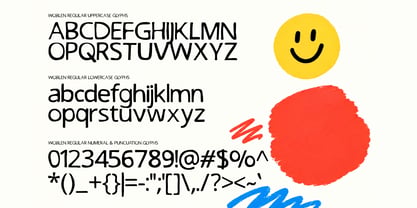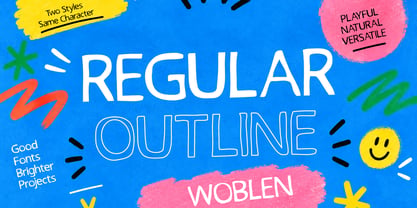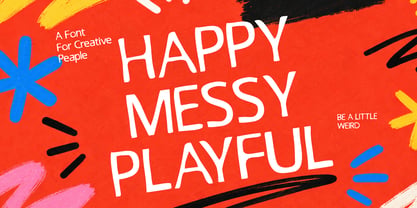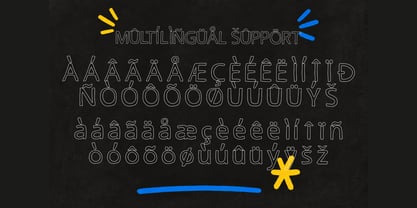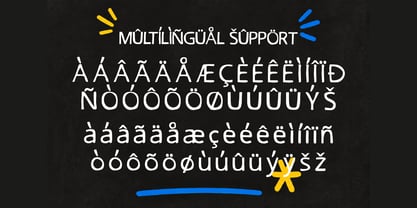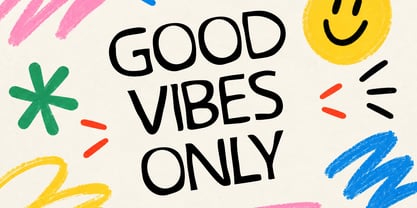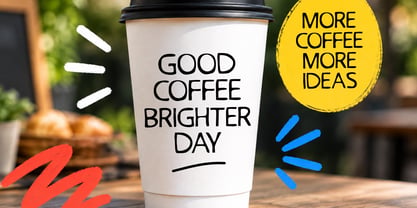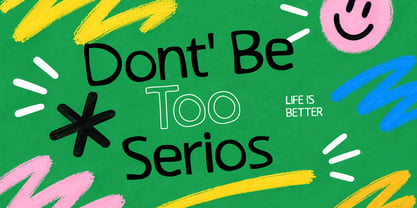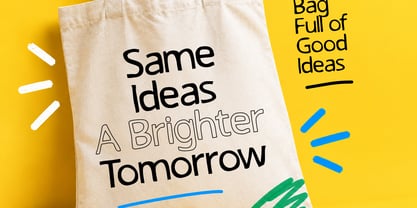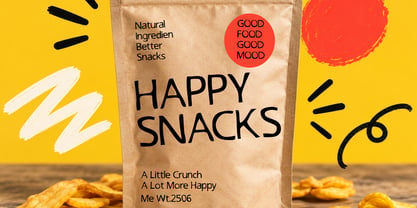
Woblen
by Muksal Creatives
The Woblen Font Family was designed by Muksalmina and published by Muksal Creatives. Woblen contains 2 styles and family package options. More about this family
Woblen is a bold and playful hand-drawn display typeface designed to bring personality, energy, and a fun handmade feel to your creative projects. With its chunky letterforms, organic curves, and slightly irregular shapes, Woblen creates a friendly and expressive visual style that instantly grabs attention.
The font includes Regular and Outline styles, giving you the flexibility to create bold headlines, layered typography, playful compositions, and eye-catching graphic designs. Its casual hand-drawn character works especially well for branding, packaging, posters, apparel, social media graphics, stickers, children's designs, food and beverage projects, and other creative applications.
Designers: Muksalmina
Foundry: Muksal Creatives